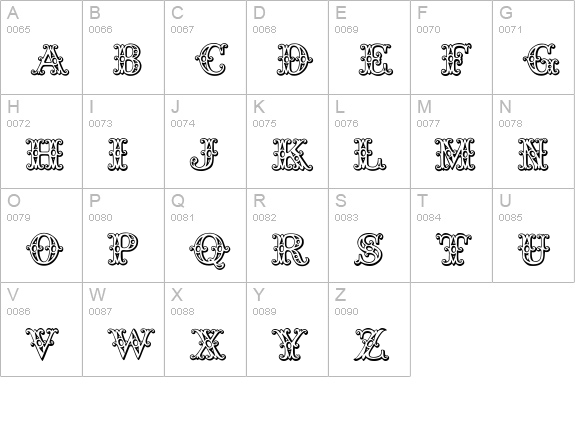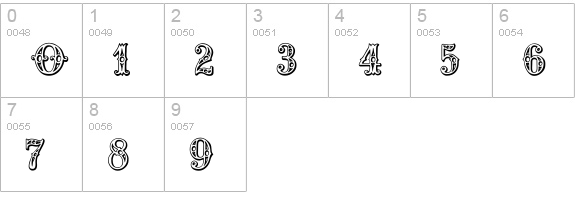
Tropicana Font Details
Introducing Tropicana, a captivating font that will transport you to a tropical paradise with its vibrant and exotic design. This font exudes a sense of adventure and relaxation, making it perfect for projects that aim to capture the essence of sunny beaches, lush palm trees, and refreshing fruity cocktails. With its playful and dynamic letterforms, Tropicana is sure to bring a touch of excitement and joy to any design. Whether you're creating a logo for a beach resort, designing a travel brochure, or crafting invitations for a summer-themed party, this font will infuse your creations with a lively and tropical vibe. But the best part? Tropicana is available for free, allowing you to bring a taste of the tropics to your designs without breaking the bank. You can easily download this font at FontsMarket.com, a trusted and reliable source for high-quality fonts. With just a few clicks, you'll have access to this captivating typeface that will elevate your designs to new heights. So why wait? Embrace the spirit of the tropics with Tropicana, and let your creativity soar with this freely available font. Download it today and embark on a design journey filled with sunny vibes and endless possibilities.